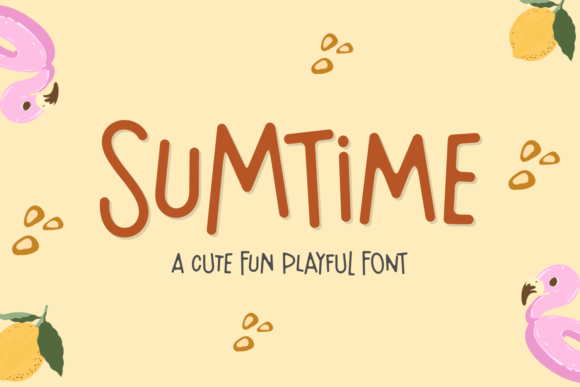
Step into a world of whimsical enchantment with Sumtime Font, a display font that captivates hearts with its playful charm. Its unique blend of rounded letters and captivating details creates a font that exudes joy and lightheartedness, perfect for infusing your designs with a touch of magic.
Immerse yourself in the delightful world of Sumtime Font, a display font that dances with whimsy and enchantment. Its playful personality shines through in every character, bringing life to children's books, greeting cards, and any project that seeks a touch of lightheartedness. With its charming curves and endearing details, Sumtime Font casts a spell of delight, leaving viewers captivated by its irresistible charm.
Unleash your creativity with Sumtime Font, a font that ignites the imagination and sparks joy. Its playful and whimsical nature makes it the perfect choice for creating designs that bring a smile to people's faces. Whether you're designing for children's books, greeting cards, or any project that calls for a touch of playfulness, Sumtime Font is your go-to font for creating designs that resonate with audiences of all ages.